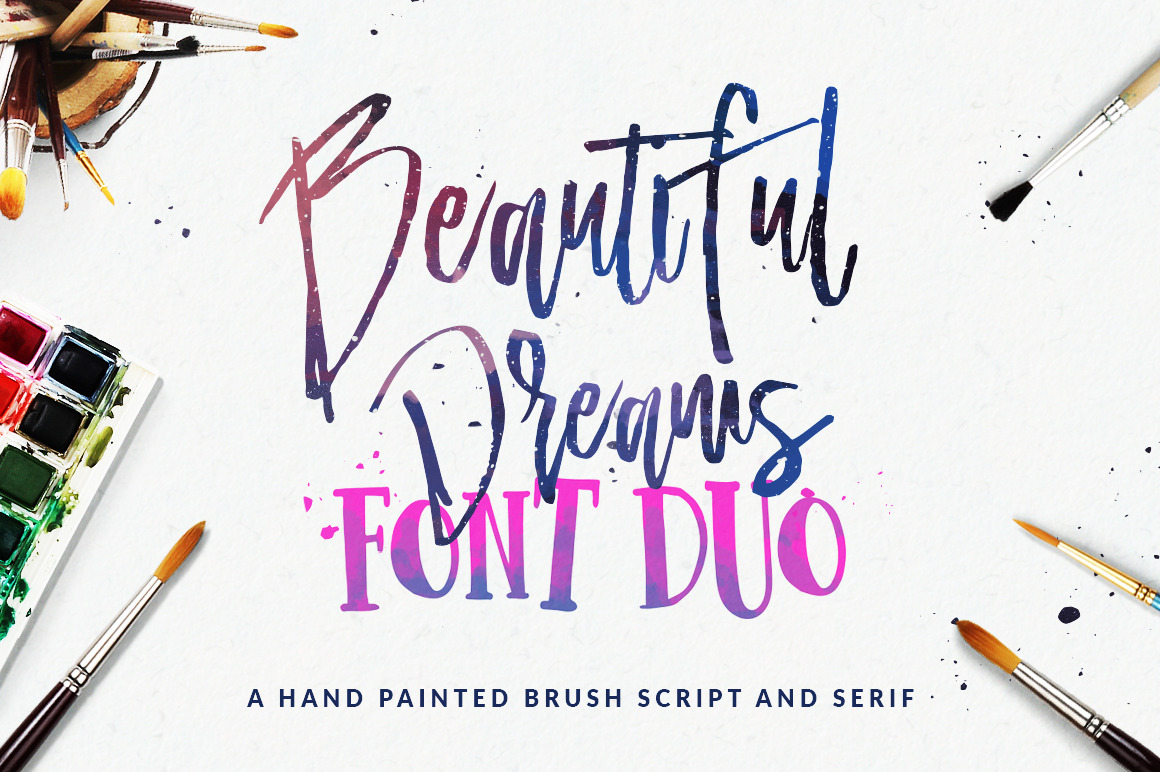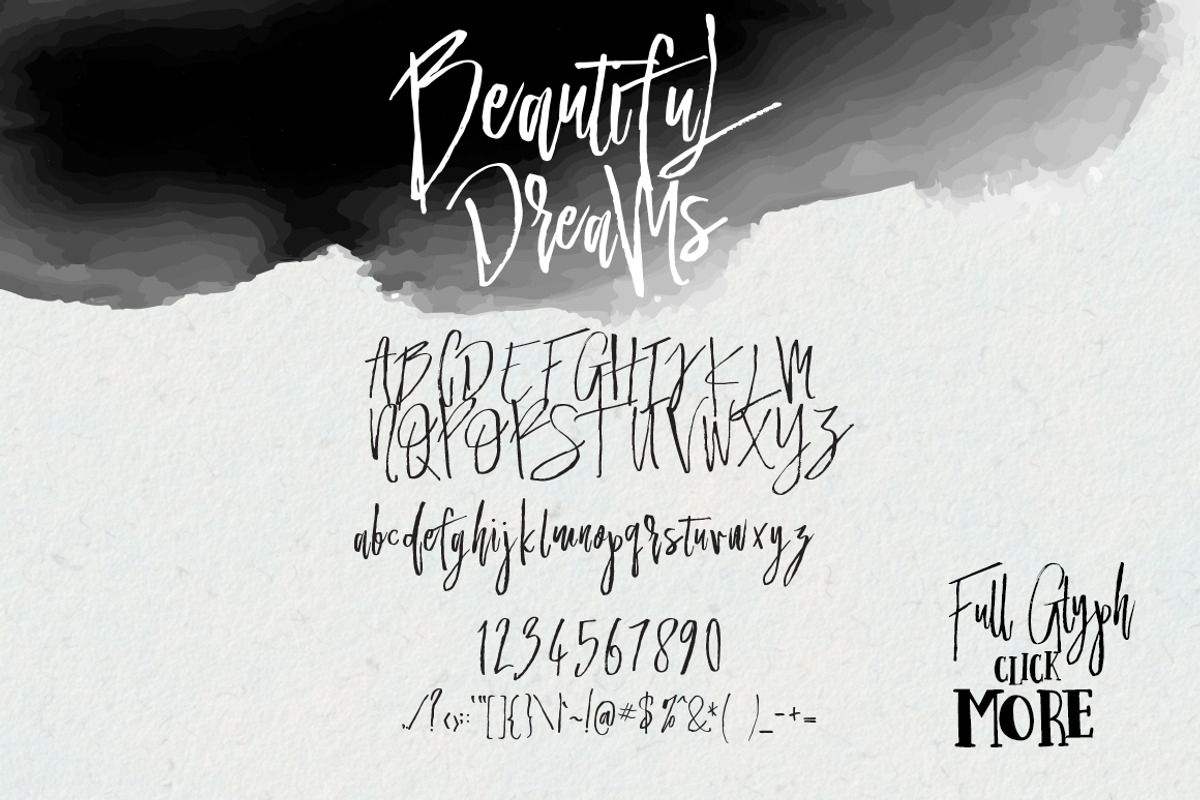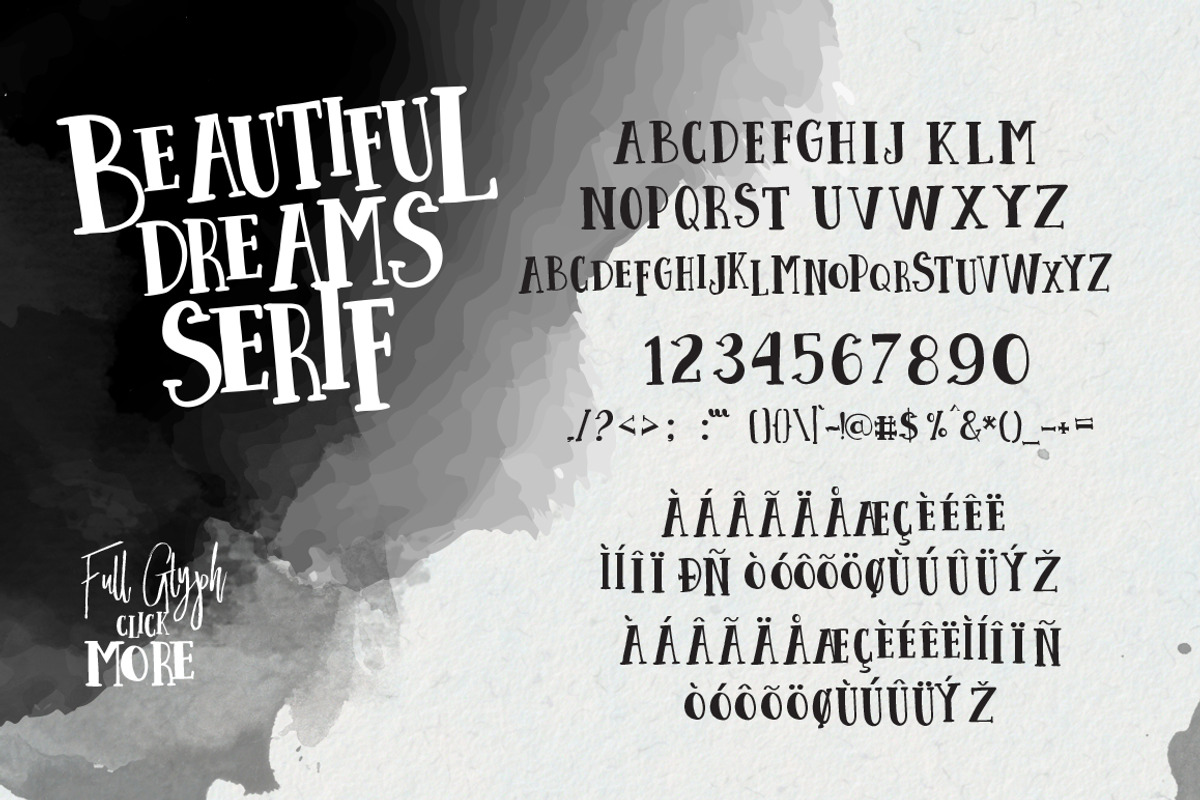
Beautiful Dreams - Font Duo
Beautiful Dreams Font Duo, a handmade font with a brush that is imperfect calligraphy, perfect for your next design, such as logos, printed quotes, handwritten quotes, invitations, cards, product packaging, merchandise, social media & greeting cards, headers and and anything else about your imagination.
- Stylistic Set